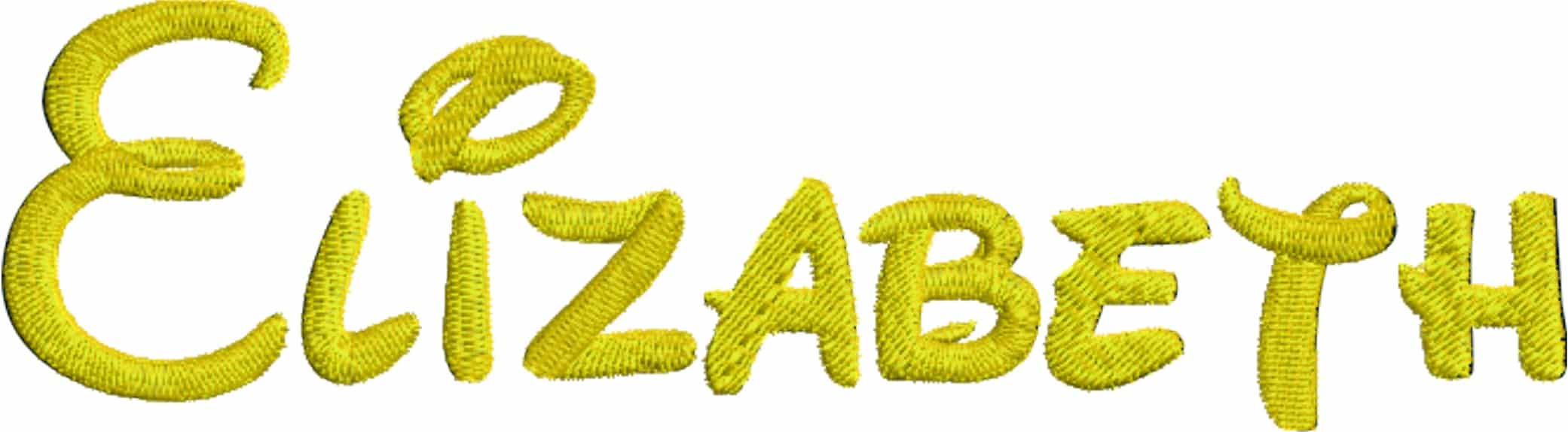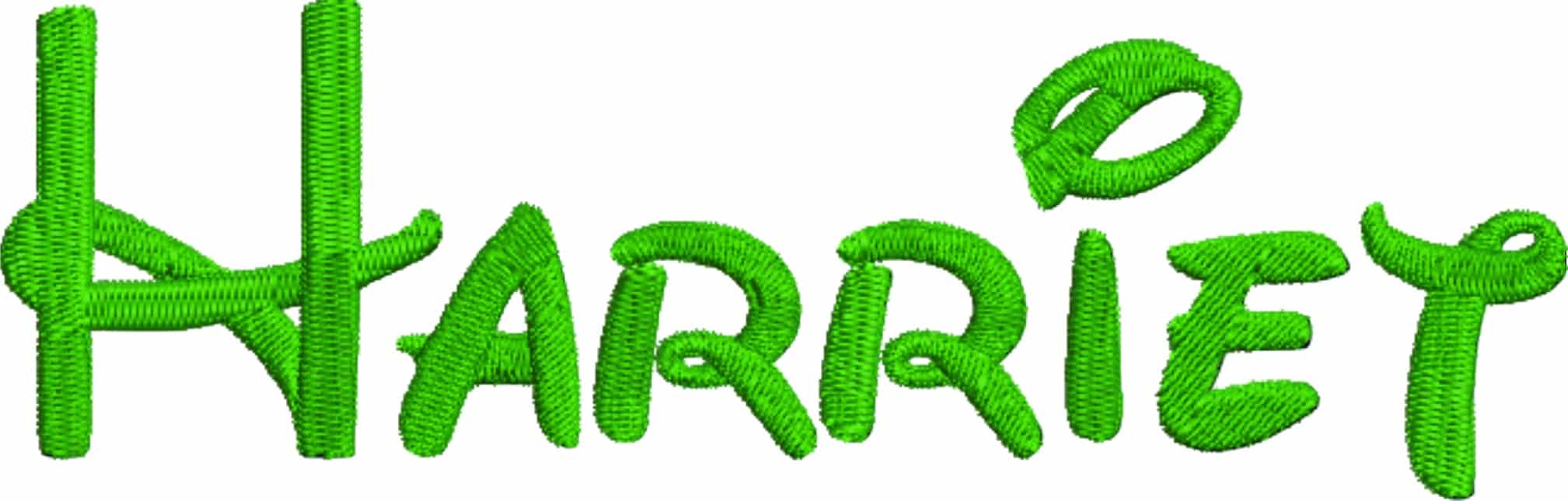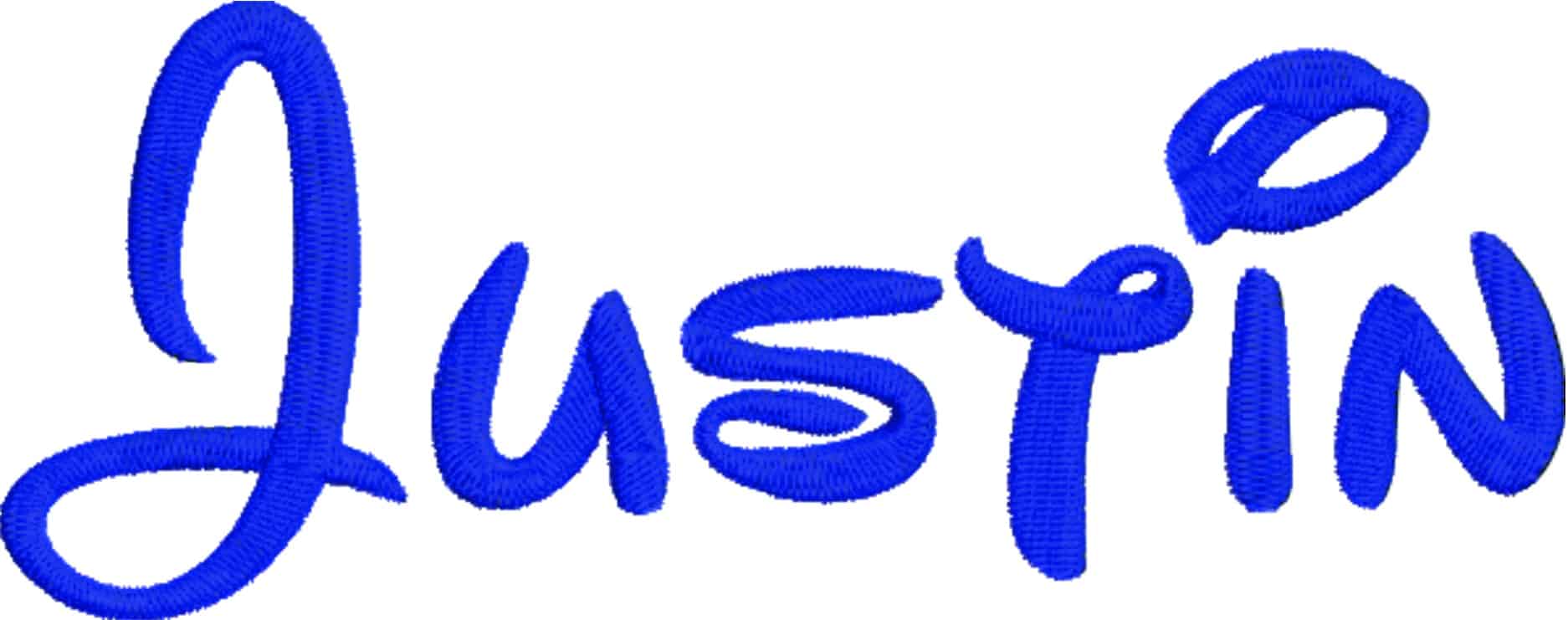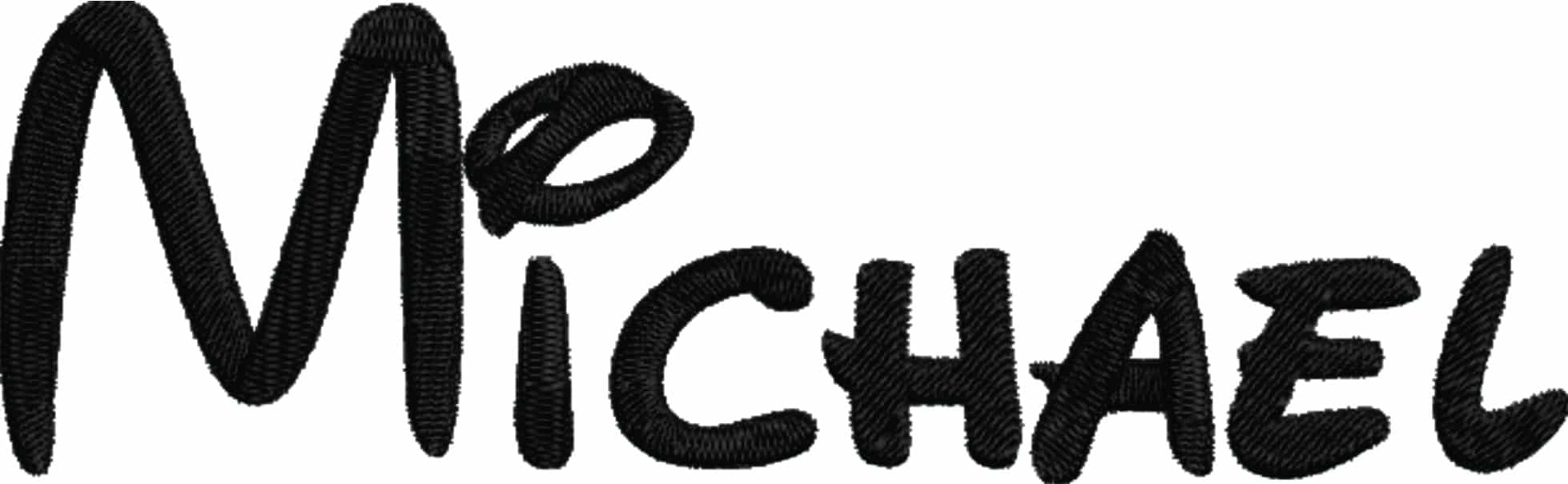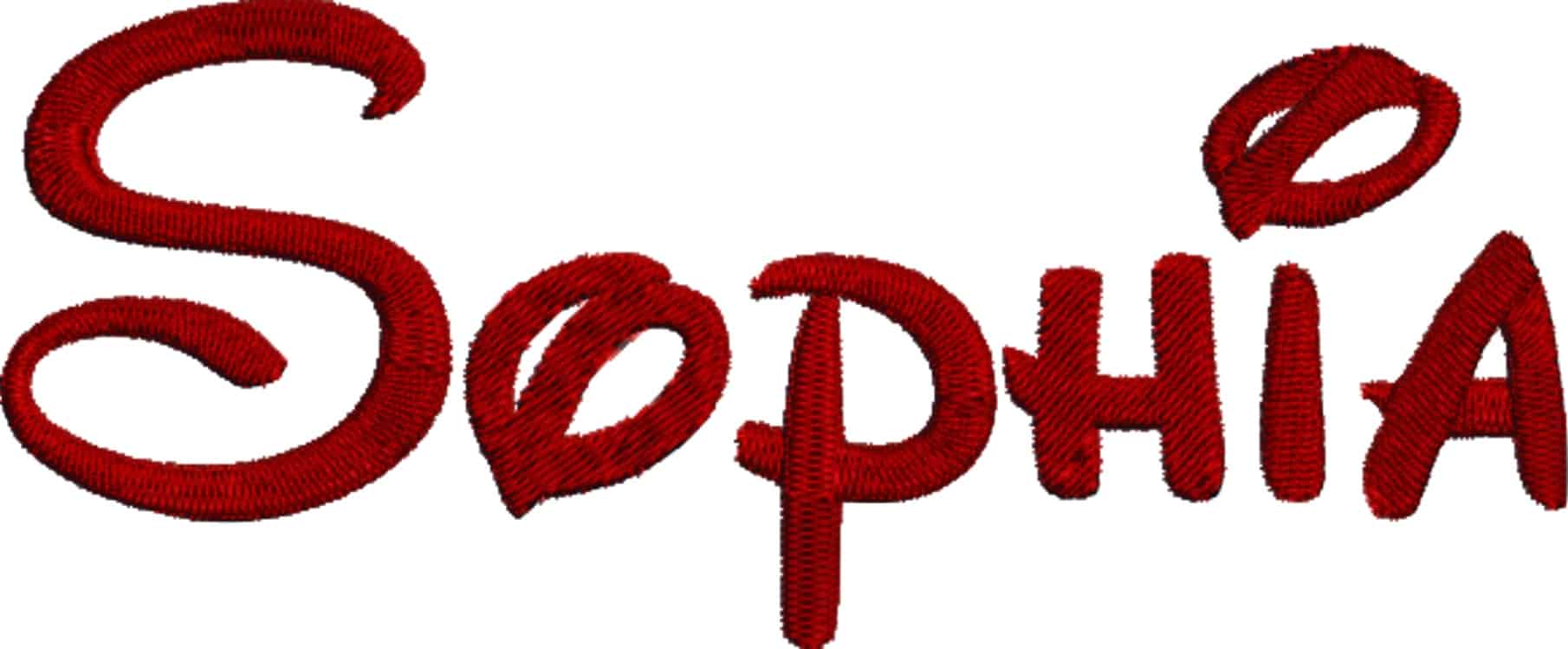
A playful handwritten embroidery font with swashy capitals and easy, rounded lowercase letters for names, gifts and personal touches.
Add playful handwriting to your stitching with this Waltograph embroidery font set, a whimsical alphabet with flowing script capitals and soft, rounded lowercase letters. The sample lettering has a casual hand-drawn feel, with the uppercase characters bringing more flourish while the lowercase keeps names and words easy to read. It suits makers who want something friendlier and less formal than a classic monogram font, especially for children's items, personalised gifts and relaxed everyday accessories.
This style works particularly well on sweatshirt fronts, denim jackets, tote bags, nursery cushions and pyjama bags where you want a name or short phrase to feel light and personal. The bold curves and smooth handwritten shapes give stitched words presence without looking stiff. Use it for first names, sibling sets, memory quilts or simple wording on cotton, denim and other everyday fabrics where a cheerful, handwritten look fits naturally.